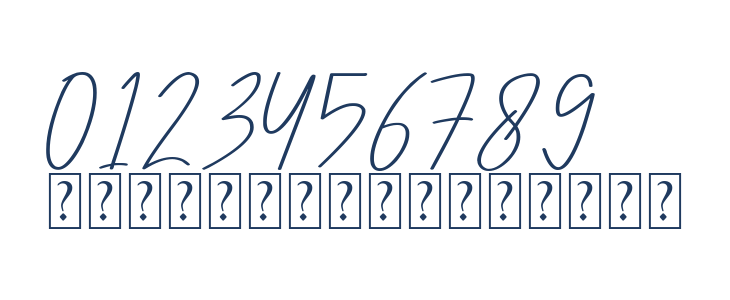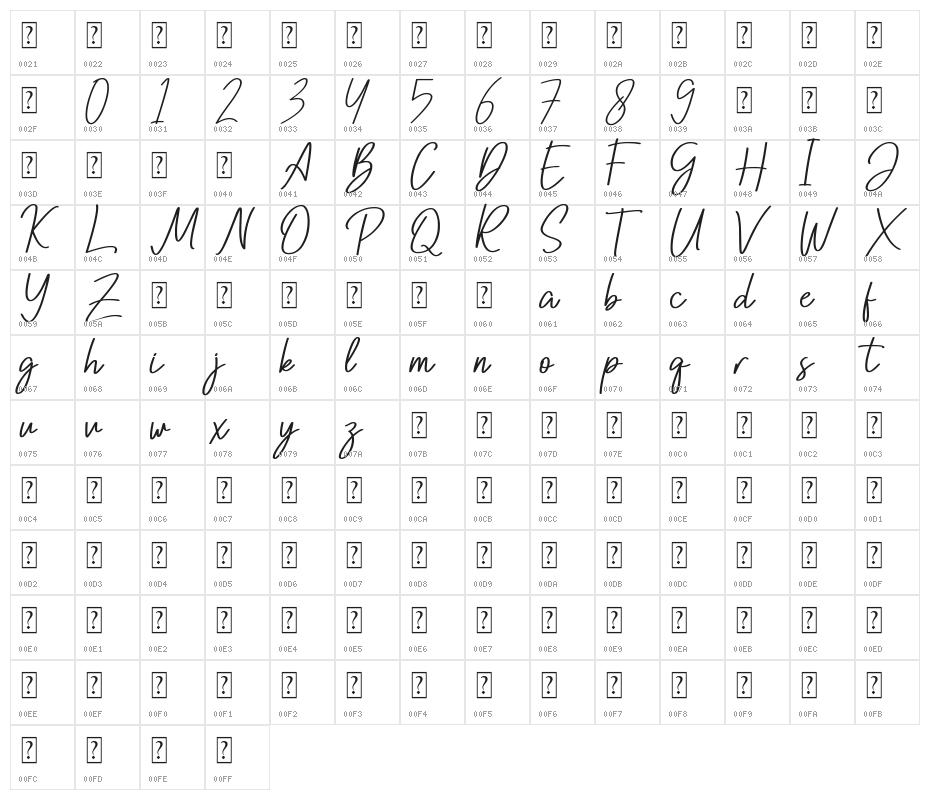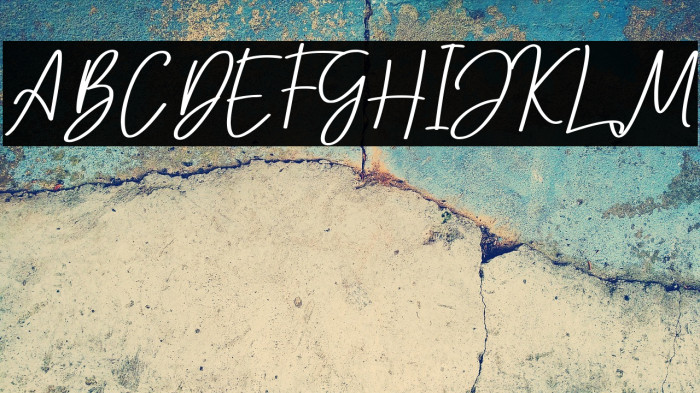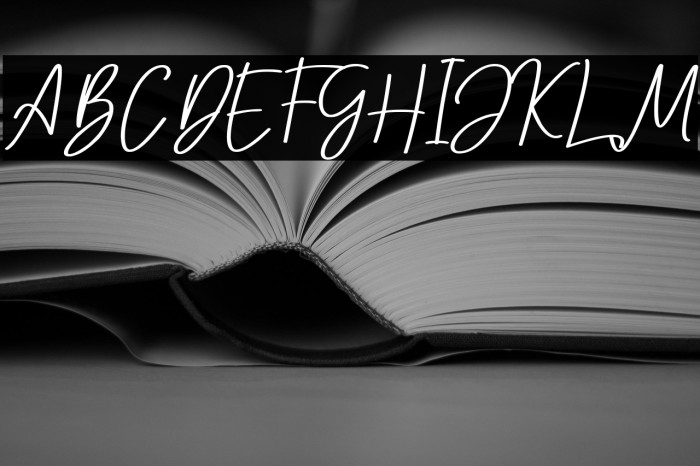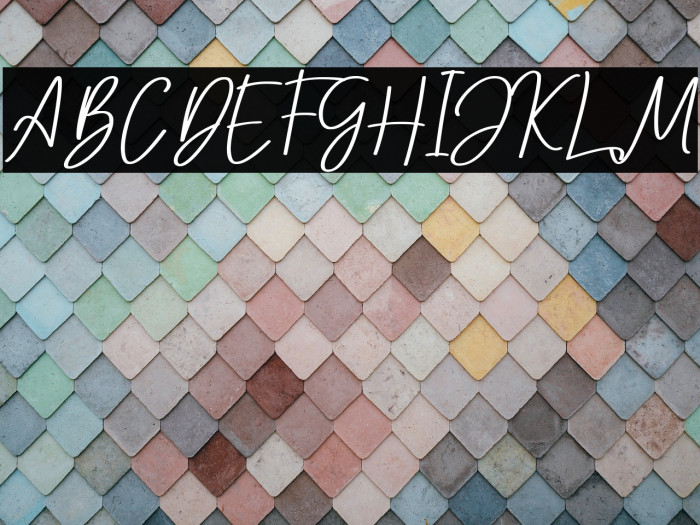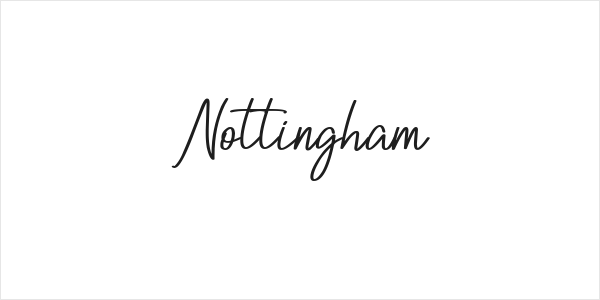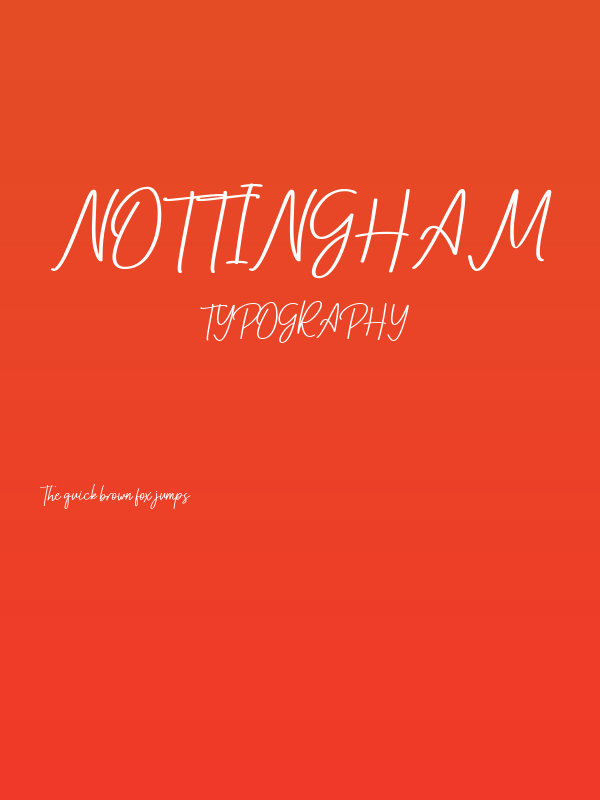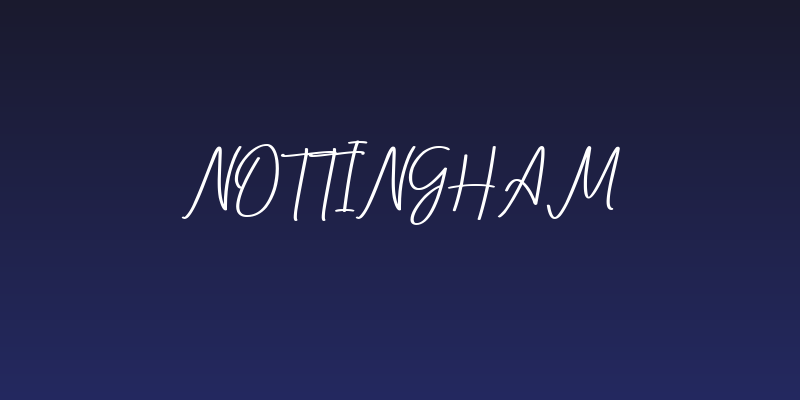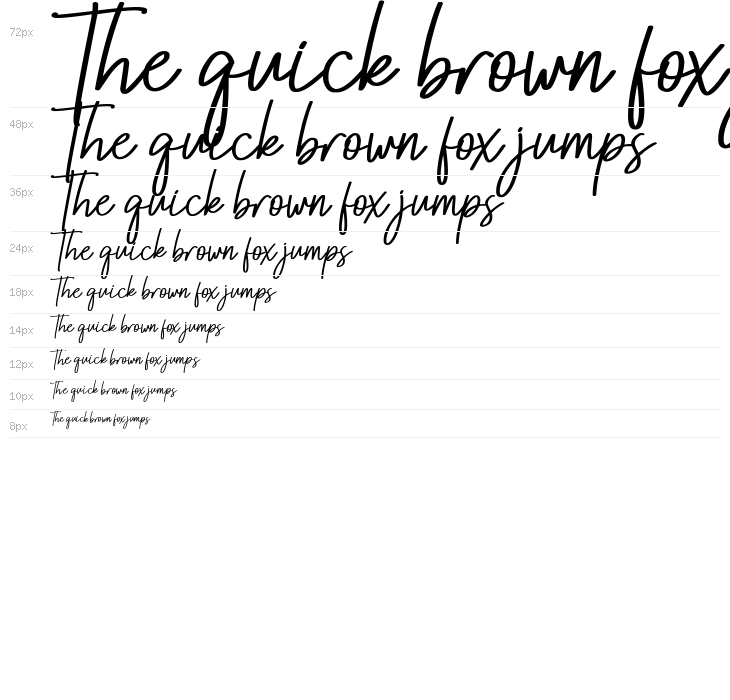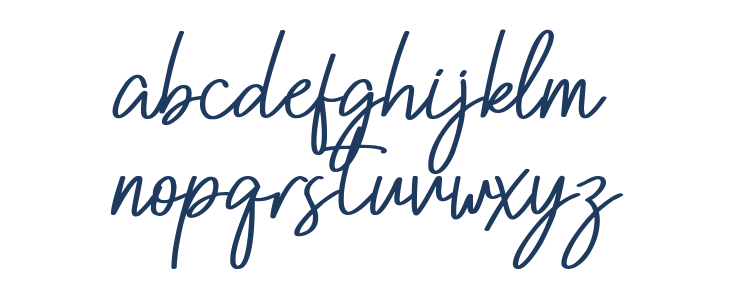
Nottingham Font
Nottingham Description
This font features a flowing, cursive style that mimics elegant handwriting. The uppercase letters are tall and slightly slanted, with smooth, continuous strokes that create a sense of fluidity and grace. The lowercase letters maintain a consistent style, with rounded forms and connected strokes that enhance the handwritten appearance. Numbers are designed with the same fluidity, ensuring a cohesive look across all characters. The font's overall aesthetic is both sophisticated and approachable, making it suitable for a variety of design projects.
| Overall Style | Elegant, Handwritten |
| Use Case | Headlines, Invitations, Personal Branding |
| Proposed Projects | Ideal for wedding invitations, personal branding, greeting cards, and elegant packaging designs. |